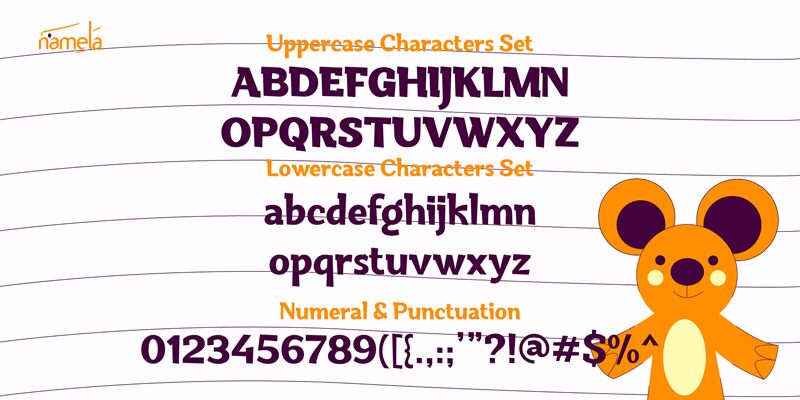
Dubidam Arabic DEMO Regular
Dubidam Arabic font, designed by Namela Type, is a free display cartoon typeface. This stylish font draws inspiration from Arabic handwriting for unique eye-catching designs, especially when combined with its shadow styling options. The letters of Dubidam Arabic mold into beautifully balanced words and a neat visual harmony.
Use this font in typographic logos or brand identity projects for restaurants and food businesses. Use it even in professional settings such as advertising and packaging design or more classy media like books and magazines. Other examples: movie posters, postcards, invitation cards (and wedding invites), product labels, among others!